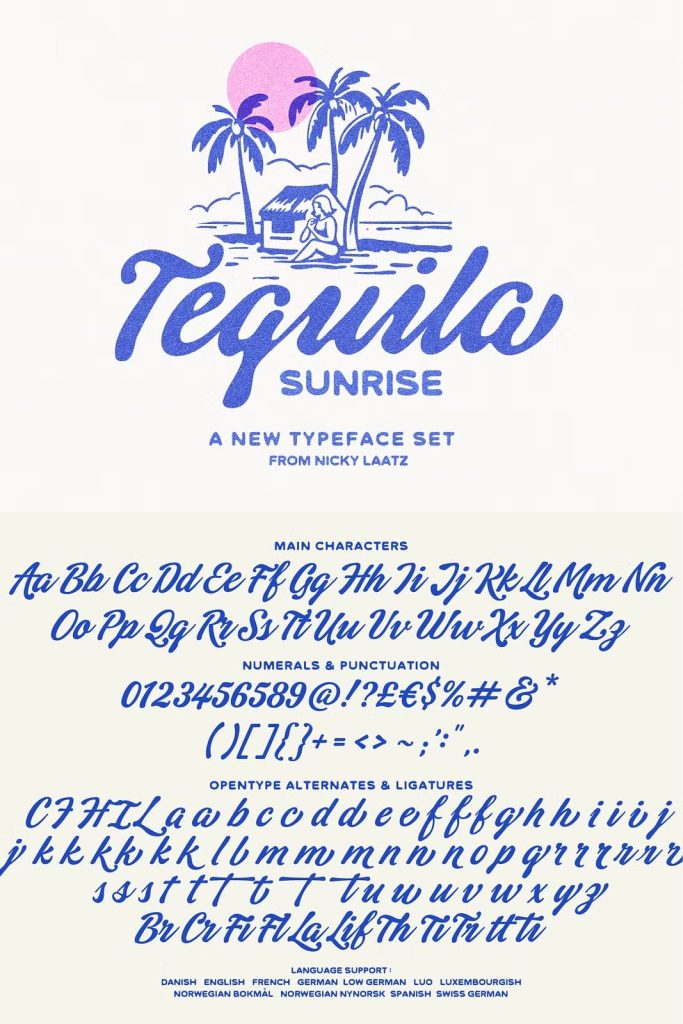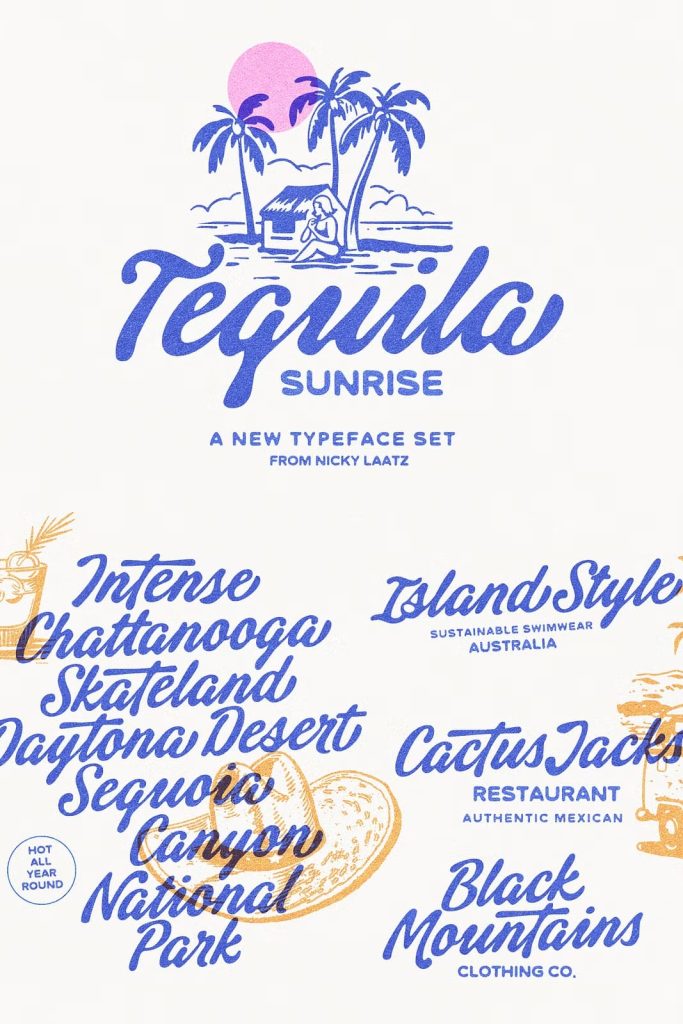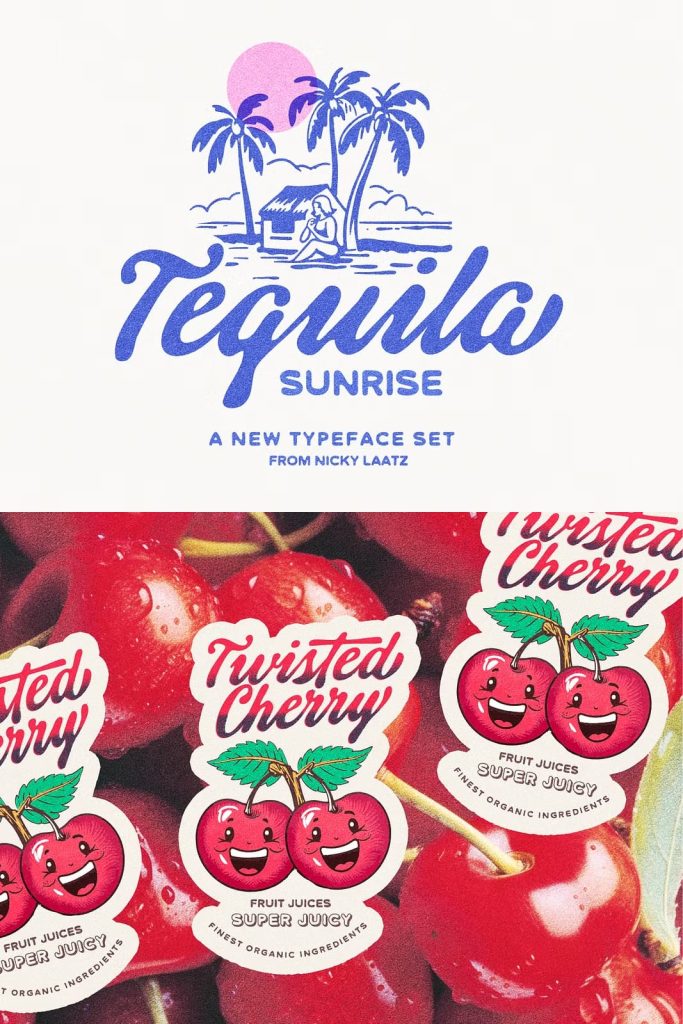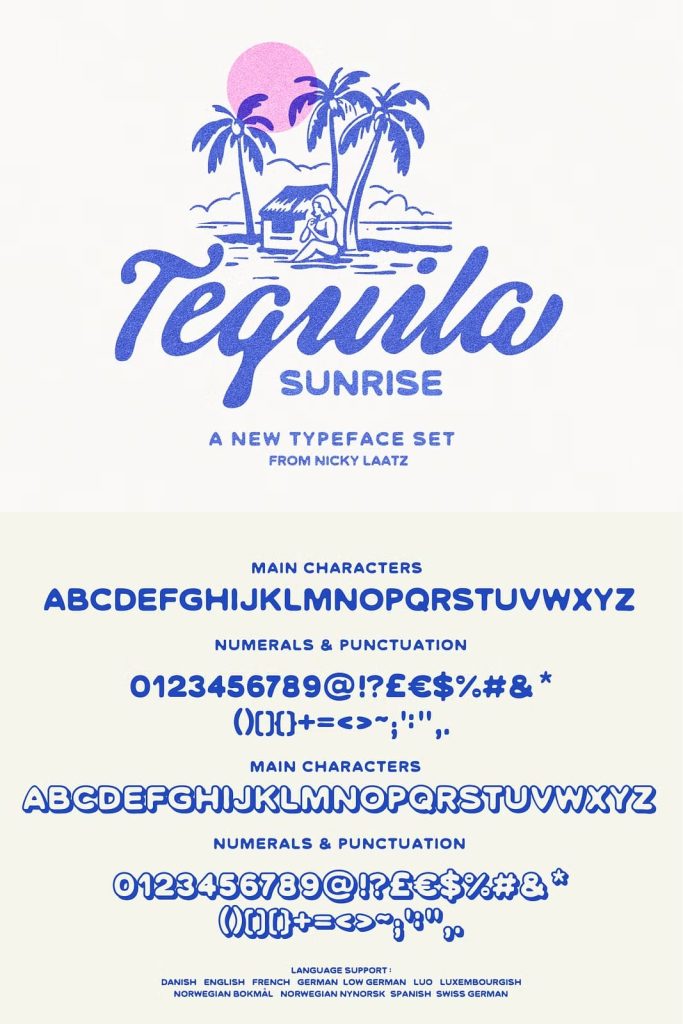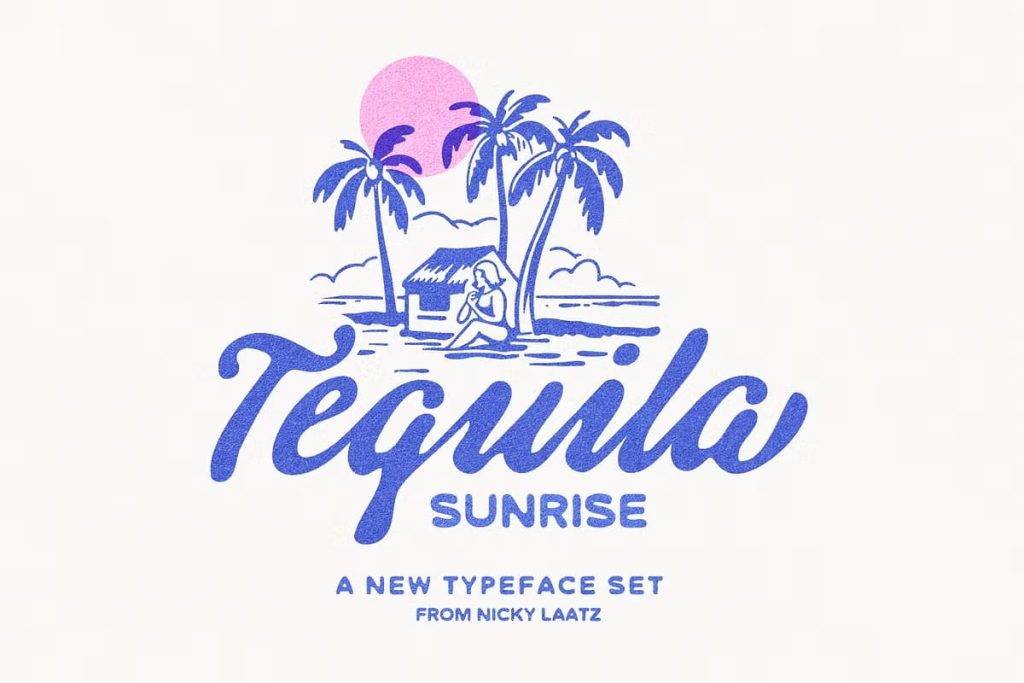
Tequila Sunrise Typeface Pack
Tequila Sunrise Font Duo: Retro-Modern Style with Bold Character
Tequila Sunrise font duo brings together retro charm and modern creativity in one expressive type system. This carefully designed pairing combines a flowing script with a bold inky sans serif, giving designers the flexibility to create eye-catching and dynamic compositions. It captures the warmth and energy of vintage aesthetics while delivering the clarity and versatility needed for contemporary design.
With its distinctive personality and strong visual presence, Tequila Sunrise allows designers to craft work that stands out immediately. It transforms ordinary text into engaging visual elements, making it ideal for projects that require both style and impact.
A Retro-Modern Script with Expressive Flow
The script font in Tequila Sunrise blends retro inspiration with modern execution. Its flowing curves and smooth connections create a sense of movement that feels natural and engaging. Each letter is designed to work harmoniously with the next, forming a cohesive and visually pleasing rhythm.
This script captures the spirit of vintage lettering while maintaining a clean and polished appearance. It allows designers to evoke nostalgia without sacrificing readability or usability.
Enhance Typography with Natural Movement
The continuous flow of the script helps guide the viewer’s eye across the design. This improves readability and creates a more immersive visual experience. Designers can use this feature to build layouts that feel fluid and well-structured.
The script works especially well for headlines, logos, and decorative text. It adds personality and elegance to any composition, making it a valuable tool for creative projects.
Inky Sans Serif for Bold Contrast
Complementing the script is a strong inky sans serif font. This style uses bold strokes and simple shapes to create a clear and confident presence. It provides the structure and balance needed to support the more expressive script.
The contrast between the script and the sans serif enhances visual hierarchy. It allows designers to highlight key elements while maintaining overall clarity and organization.
Create Balanced and Impactful Layouts
By combining the script with the inky sans serif, you can achieve a balanced design that feels both dynamic and controlled. Use the script for expressive elements and the sans serif for supporting text. This approach ensures that your layout remains visually engaging without becoming overwhelming.
The pairing also helps improve readability, making it suitable for both decorative and functional typography.
OpenType Features for Creative Flexibility
Tequila Sunrise script includes a range of OpenType features that expand your creative possibilities. It offers beautiful alternates and ligatures that allow you to customize your typography effortlessly. These features add variation and uniqueness to your text, preventing repetitive patterns.
The built-in alternates enable you to experiment with different letterforms while maintaining consistency. This gives your designs a handcrafted and refined appearance without requiring manual adjustments.
Design with Unique Letter Variations
Using alternates and ligatures, you can create typography that feels personalized and distinctive. These features allow you to adjust the style of specific characters, enhancing the overall composition.
This flexibility makes Tequila Sunrise ideal for branding and creative projects where originality plays a key role.
Perfect for Branding and Creative Projects
Tequila Sunrise font duo adapts easily to a wide range of applications. It works exceptionally well for branding, logos, packaging, posters, and social media content. Its retro-modern style helps designs stand out while maintaining a professional and polished look.
The font duo allows brands to communicate creativity and confidence. It adds character to visual identity, making it easier to connect with audiences and leave a lasting impression.
Build a Strong and Memorable Identity
With Tequila Sunrise, designers can create branding that feels unique and recognizable. The combination of expressive script and bold sans serif ensures that designs remain visually engaging across different platforms.
This consistency helps strengthen brand identity and improves overall design quality.
Versatile Across Print and Digital Media
Tequila Sunrise performs well in both print and digital formats. Its clear structure and strong contrast ensure readability across different sizes and resolutions. Whether used on a website, a poster, or packaging, the font maintains its style and impact.
This versatility makes it a reliable choice for designers working in various environments. It supports a wide range of creative needs without compromising quality.
Maintain Consistency and Style
The font duo helps create a cohesive visual language across multiple platforms. Its distinctive style ensures that your designs remain consistent while still allowing for creative exploration.
Tequila Sunrise font duo offers a powerful combination of retro charm, modern design, and creative flexibility. Its flowing script, bold inky sans serif, and advanced OpenType features make it a valuable asset for designers who want to create impactful typography.
By choosing Tequila Sunrise, you gain a versatile typeface that enhances both visual appeal and functionality. It allows you to produce designs that feel energetic, stylish, and memorable. For branding, editorial work, and creative projects, this font duo delivers consistent and inspiring results.